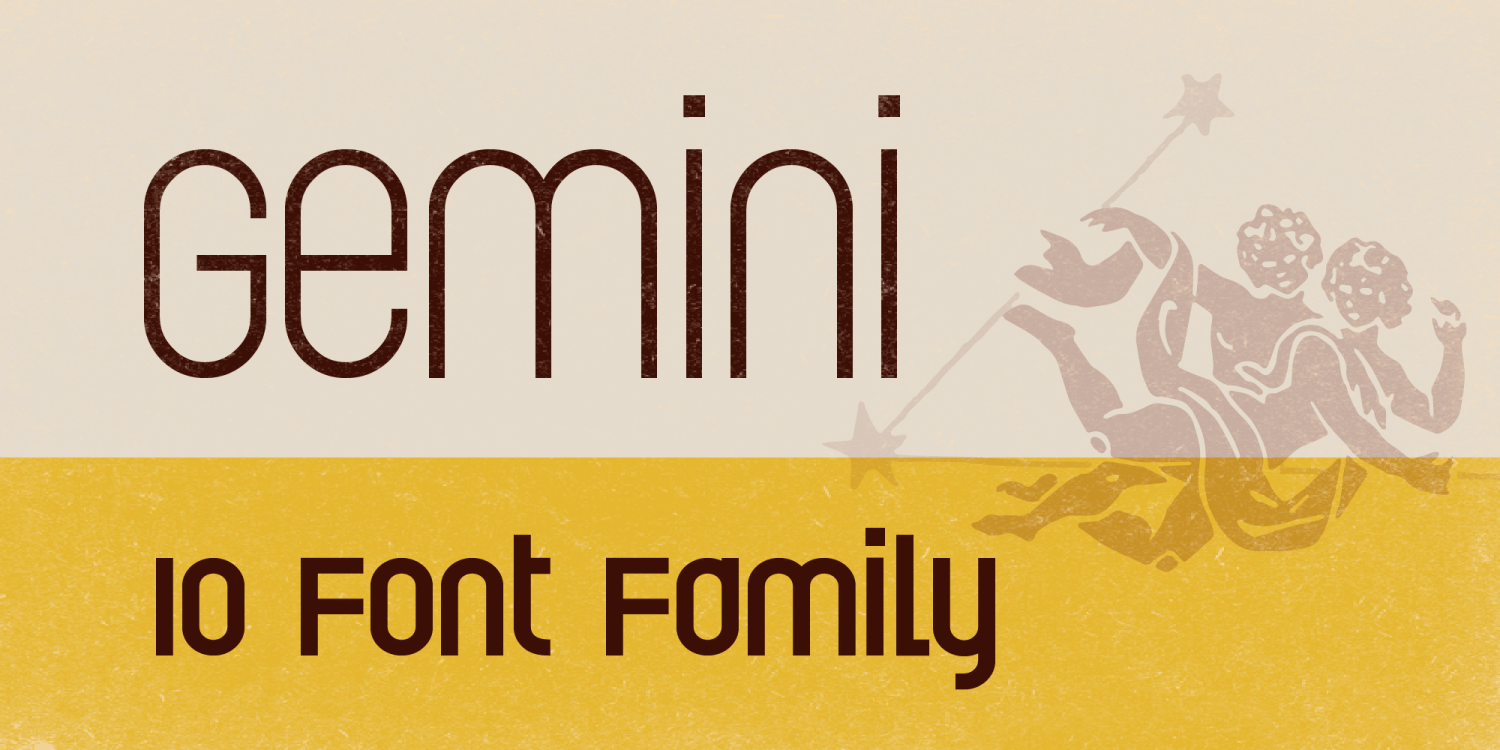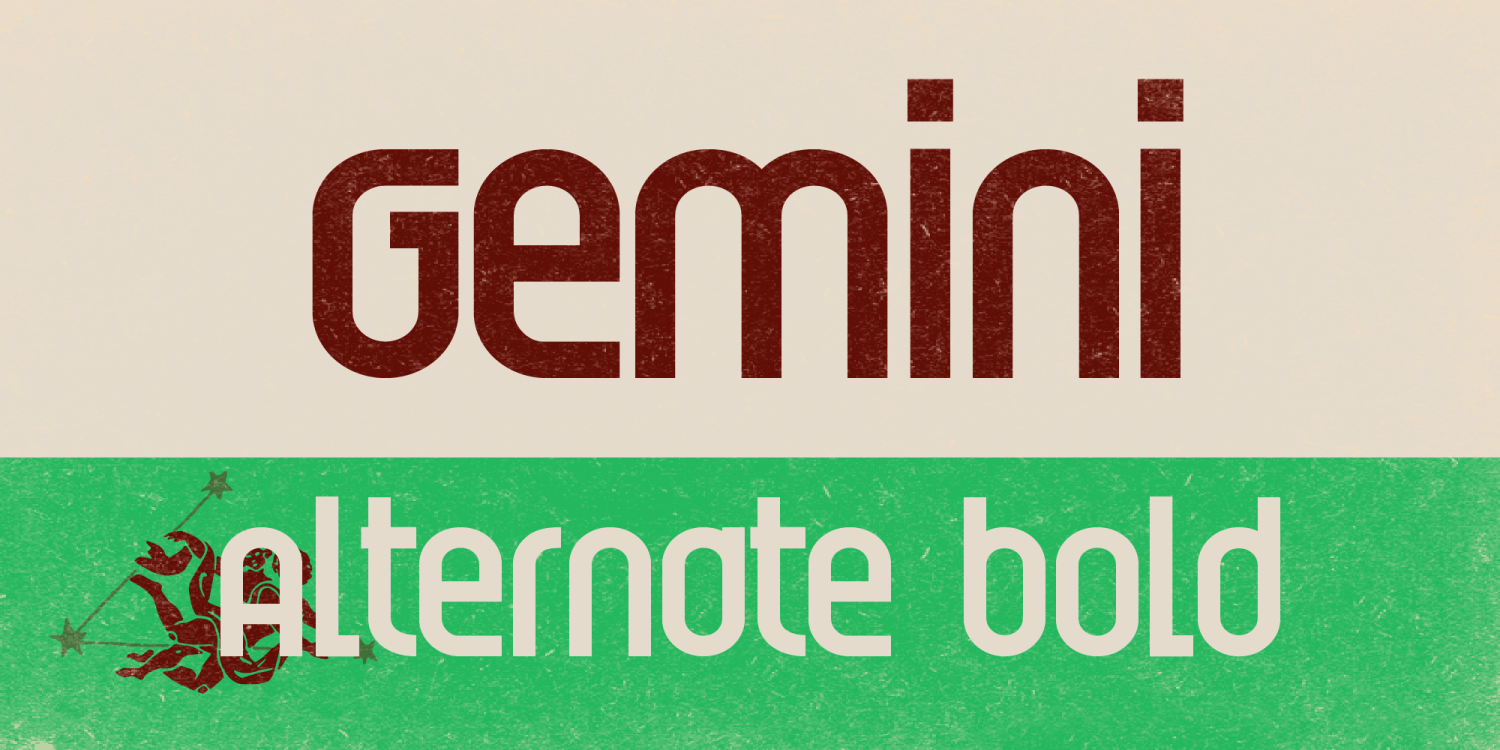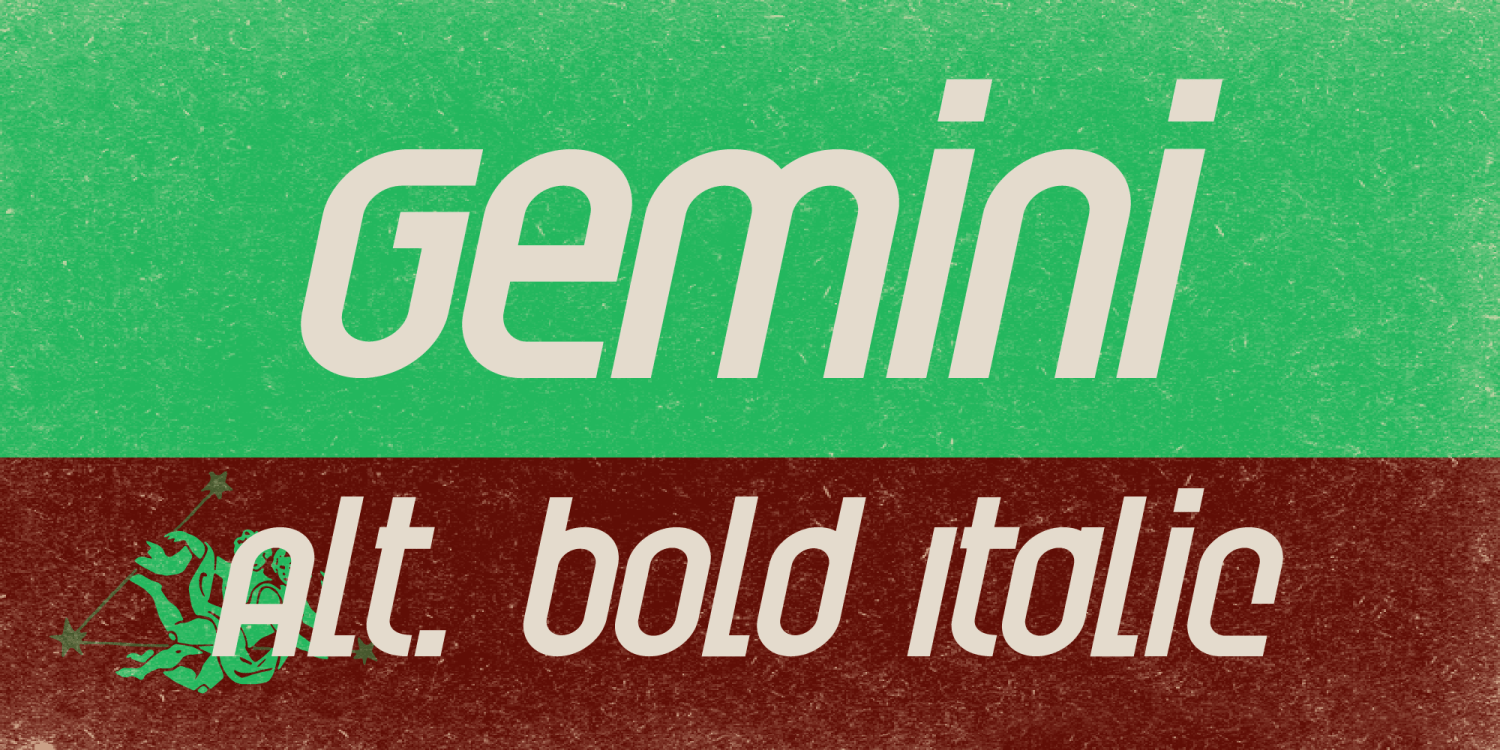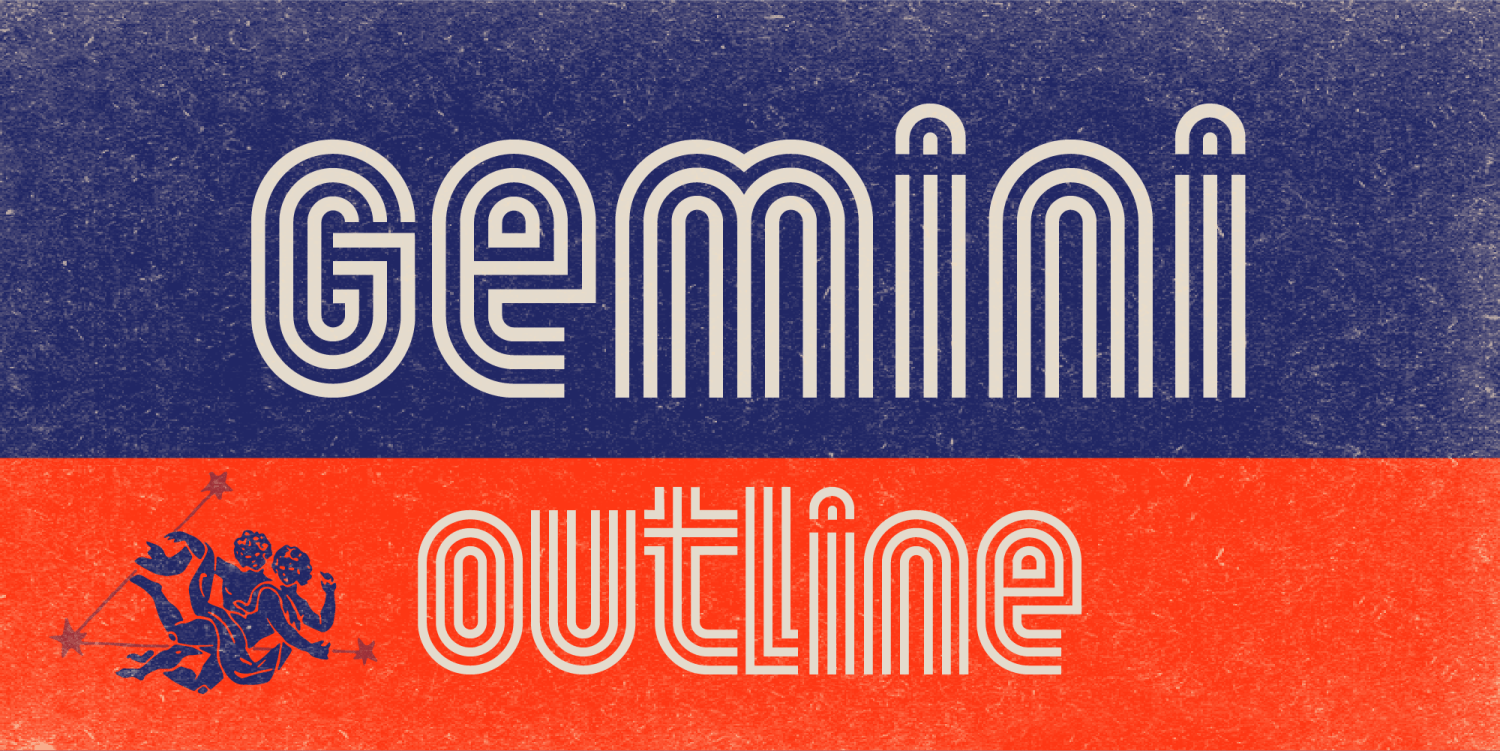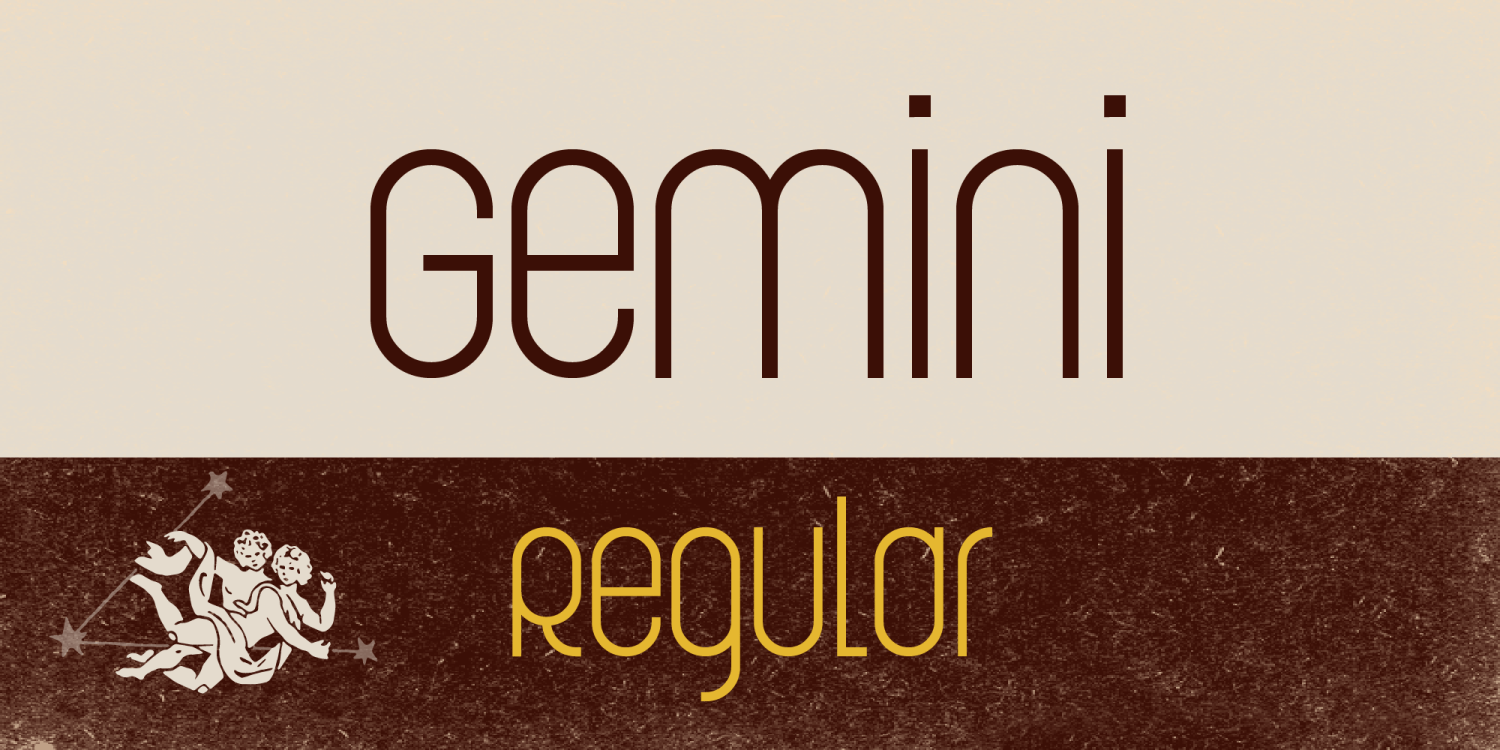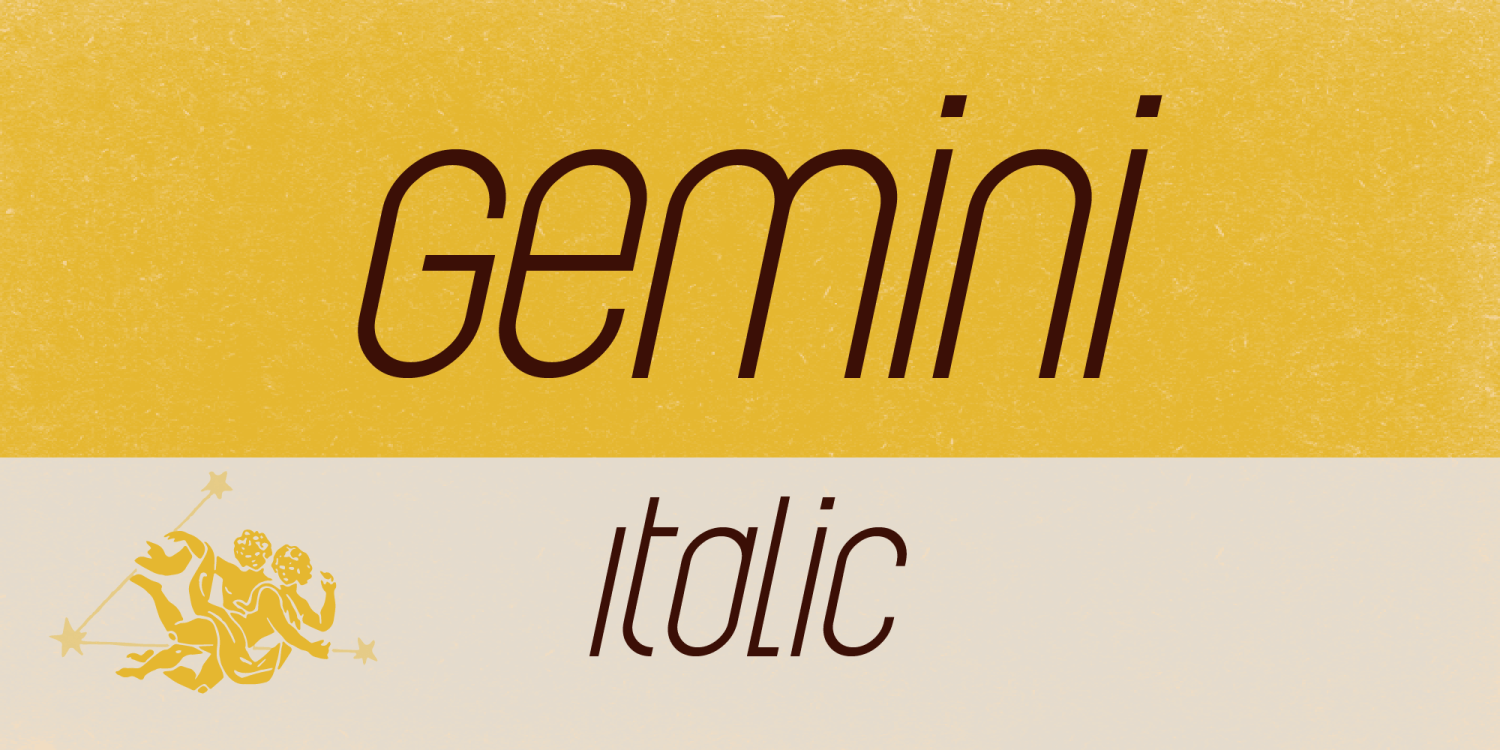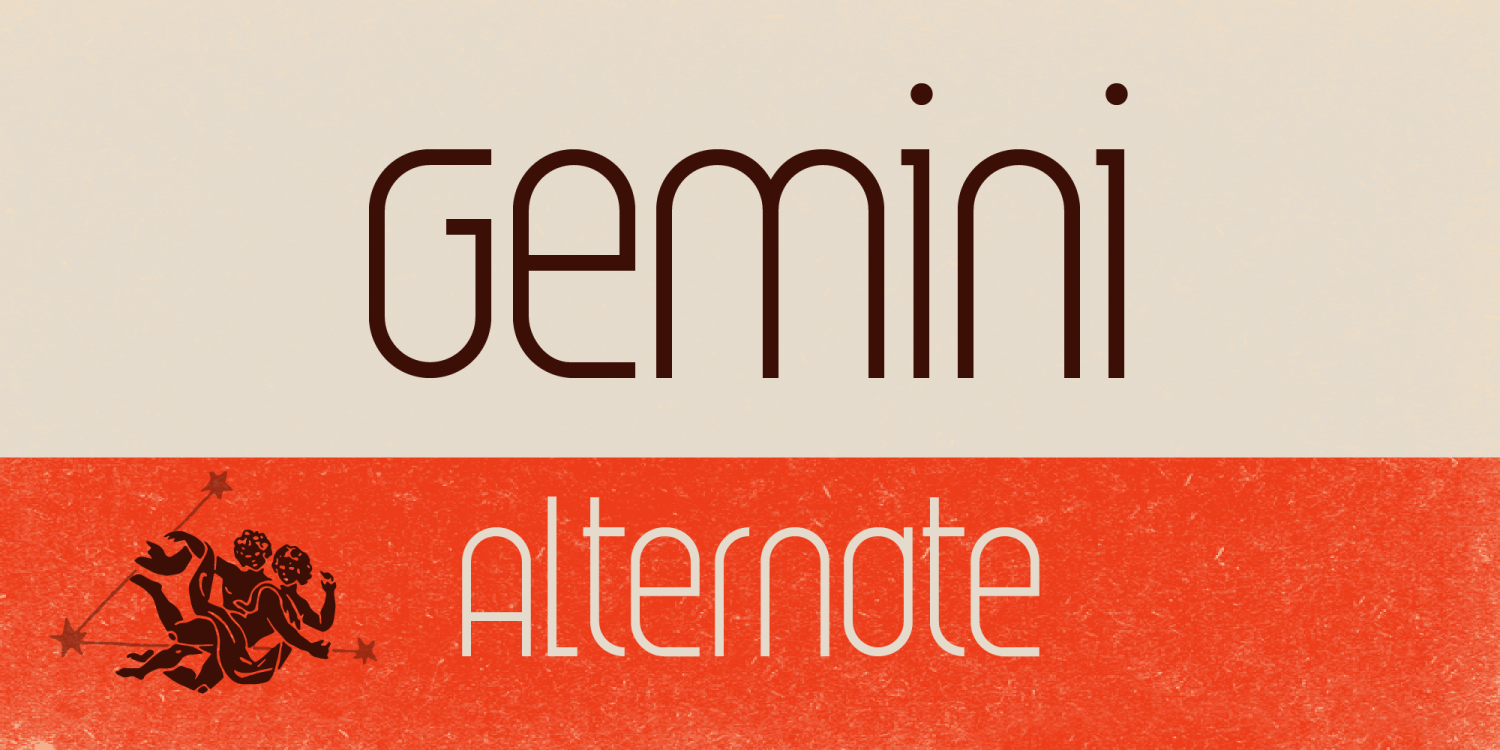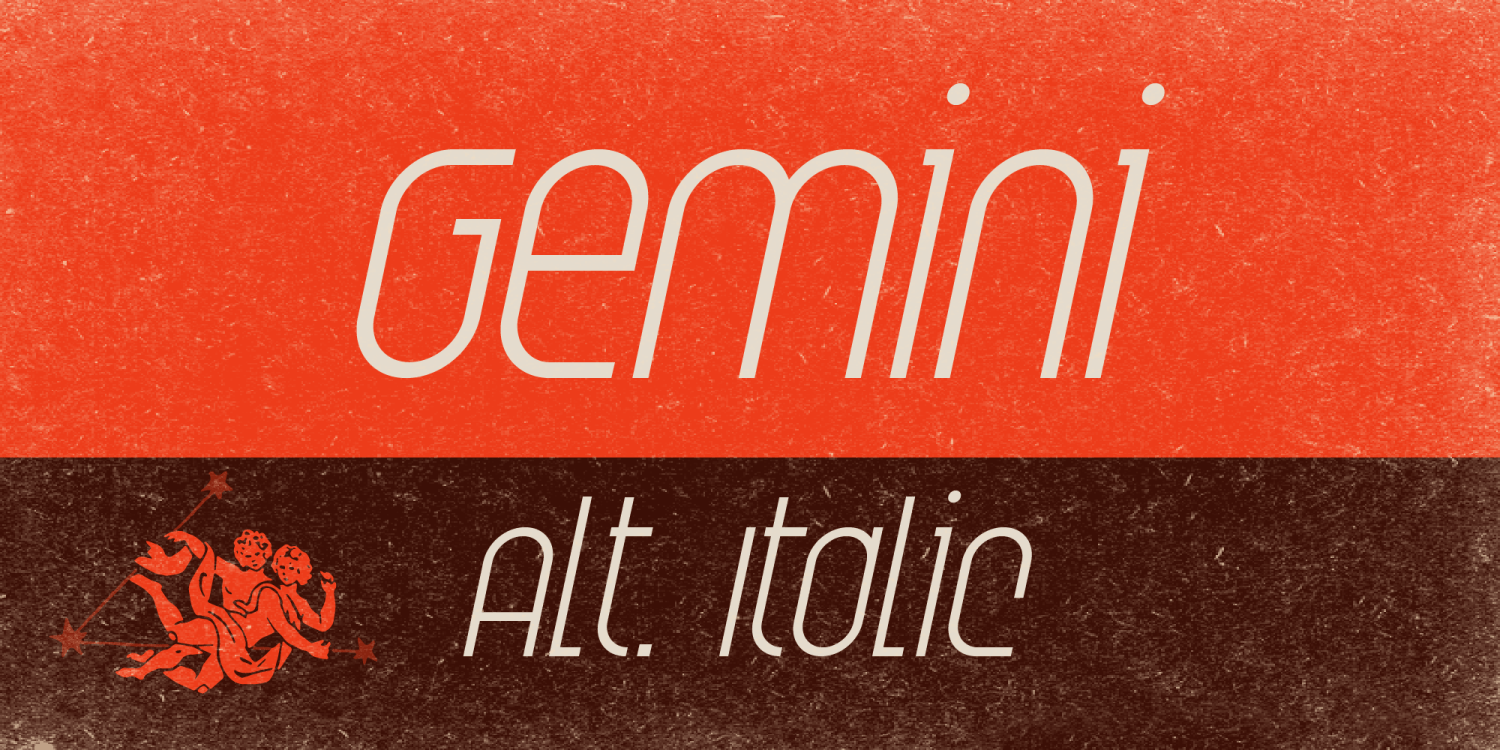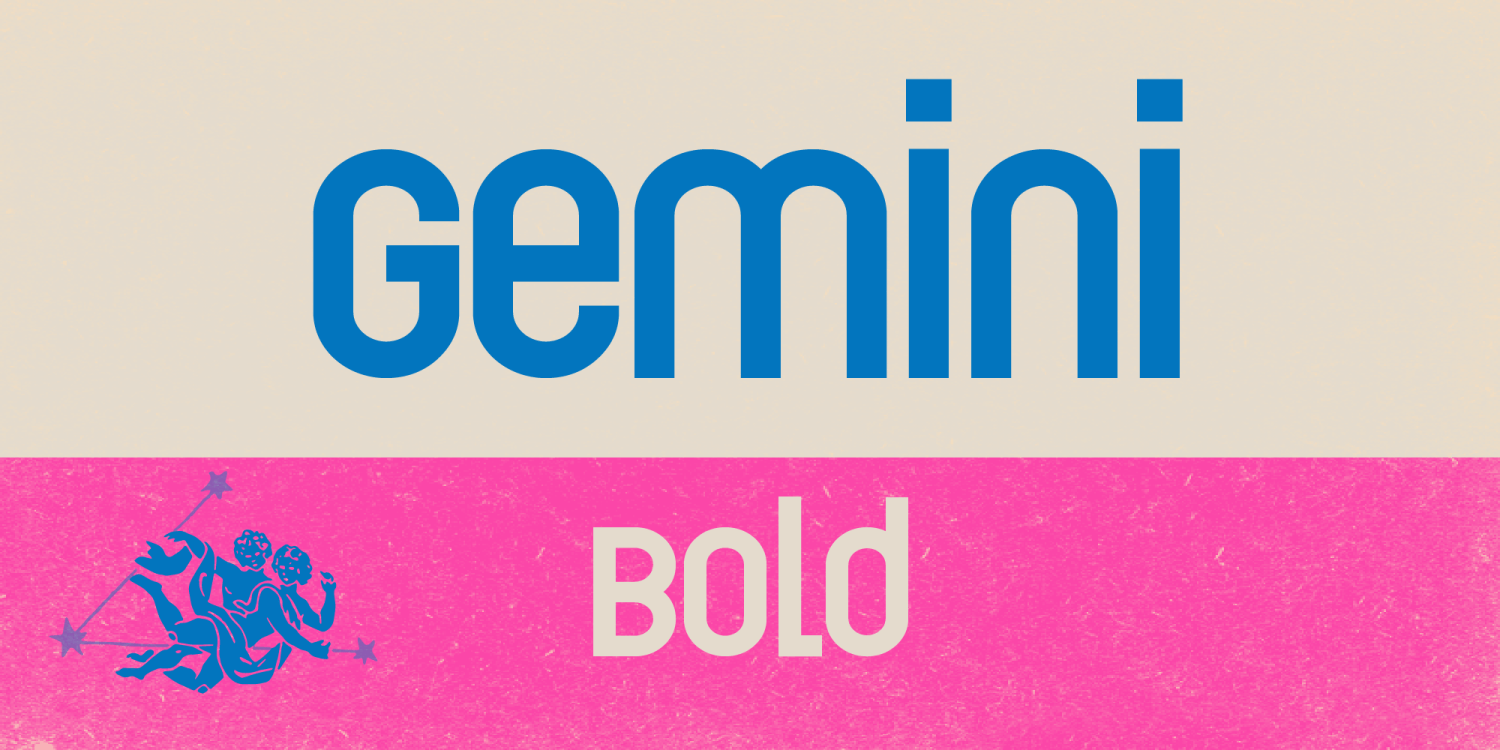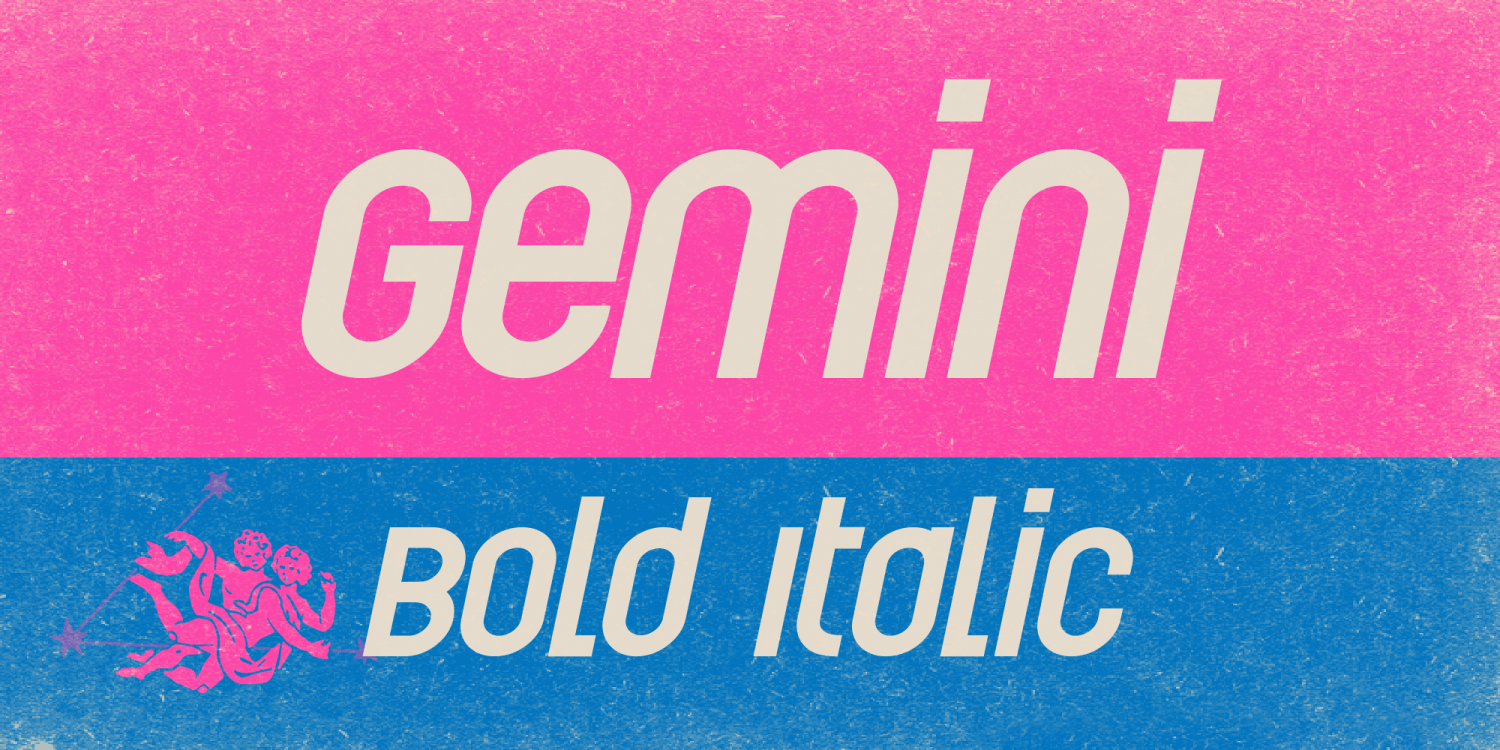
Gemini Family
It's in the stars: this font will transcend any piece into an interstellar design. Miss Cleo says, "What'choo waitin' fer, darlin'? The Gemini font is GQ!"